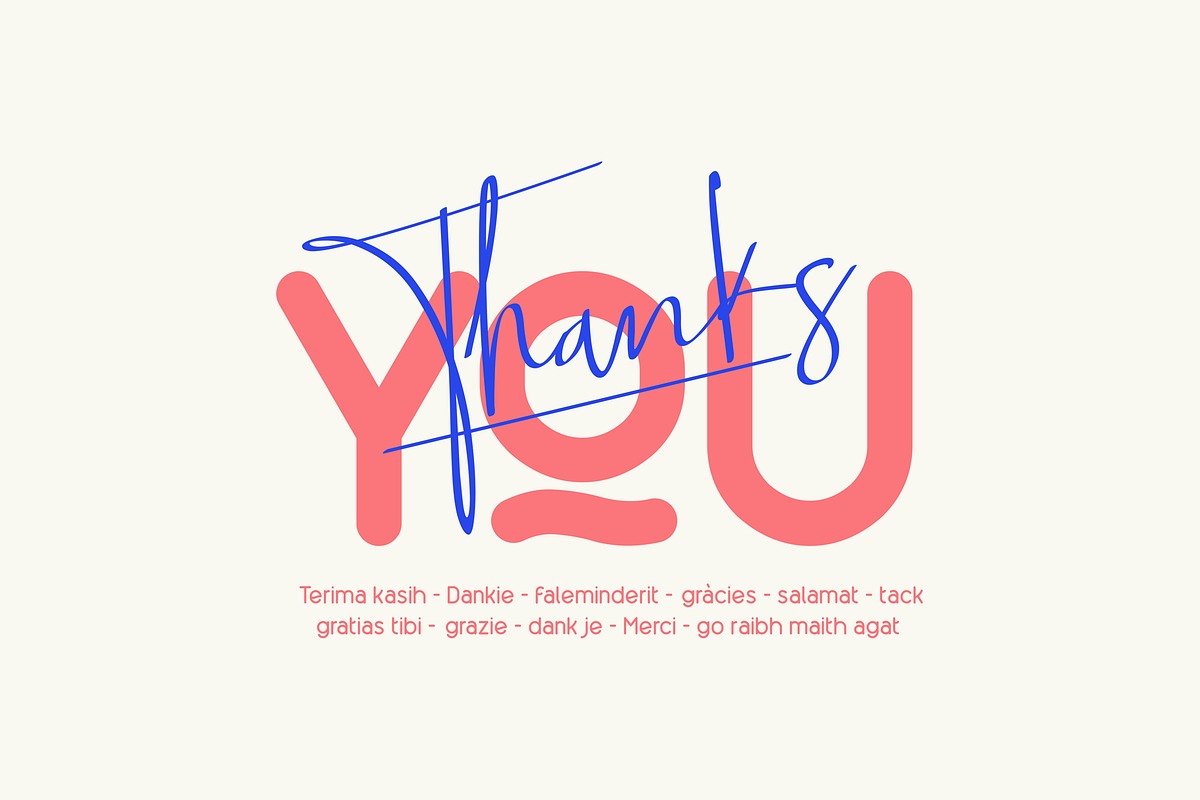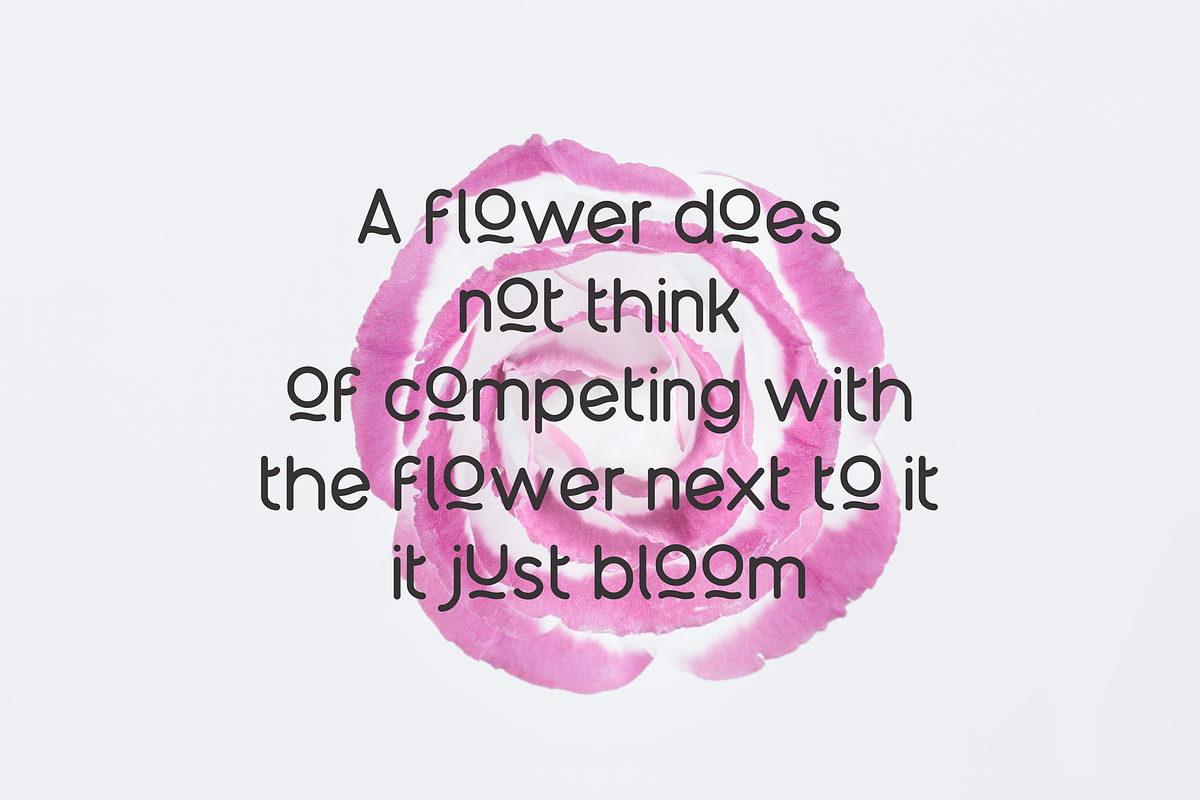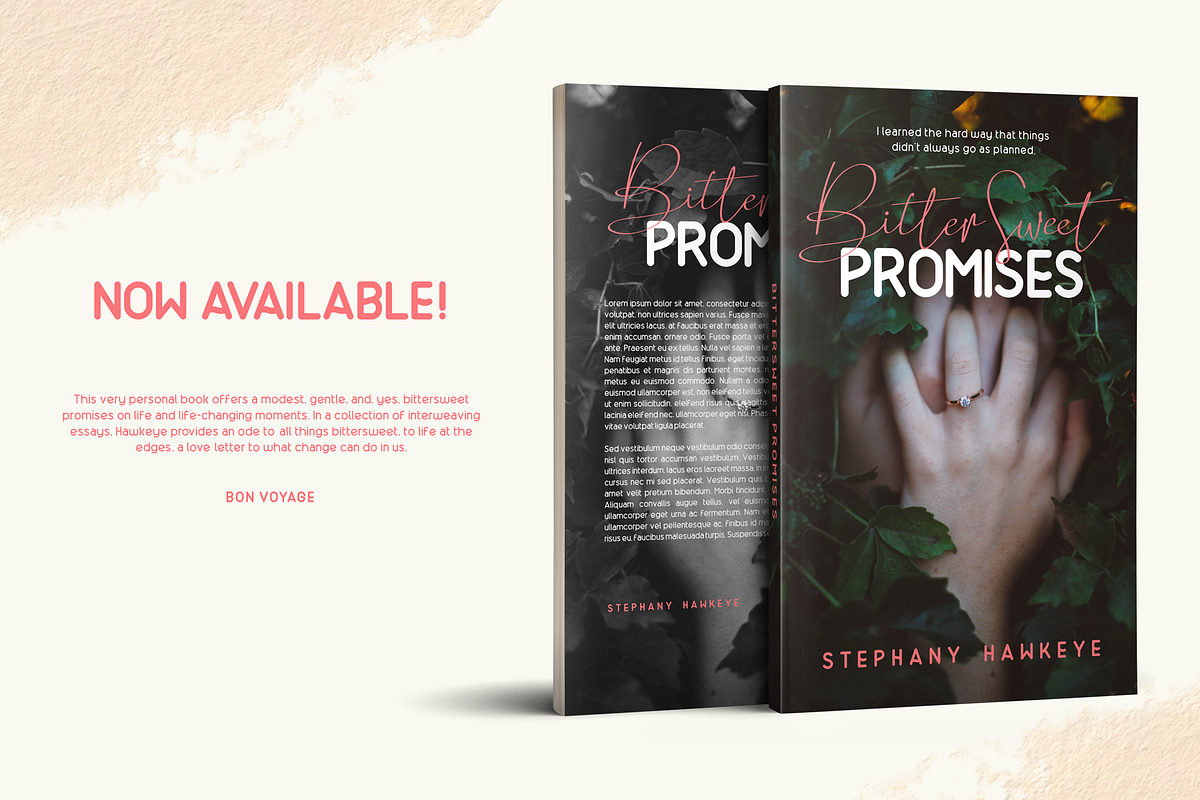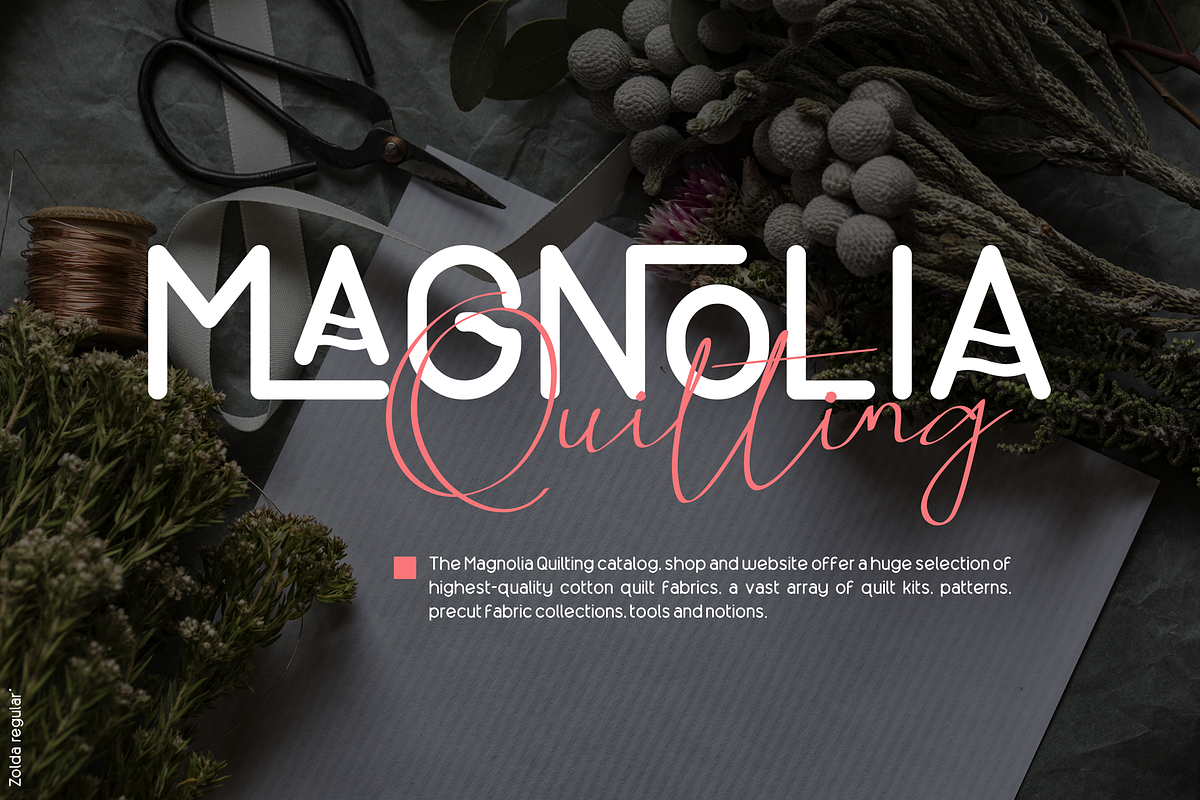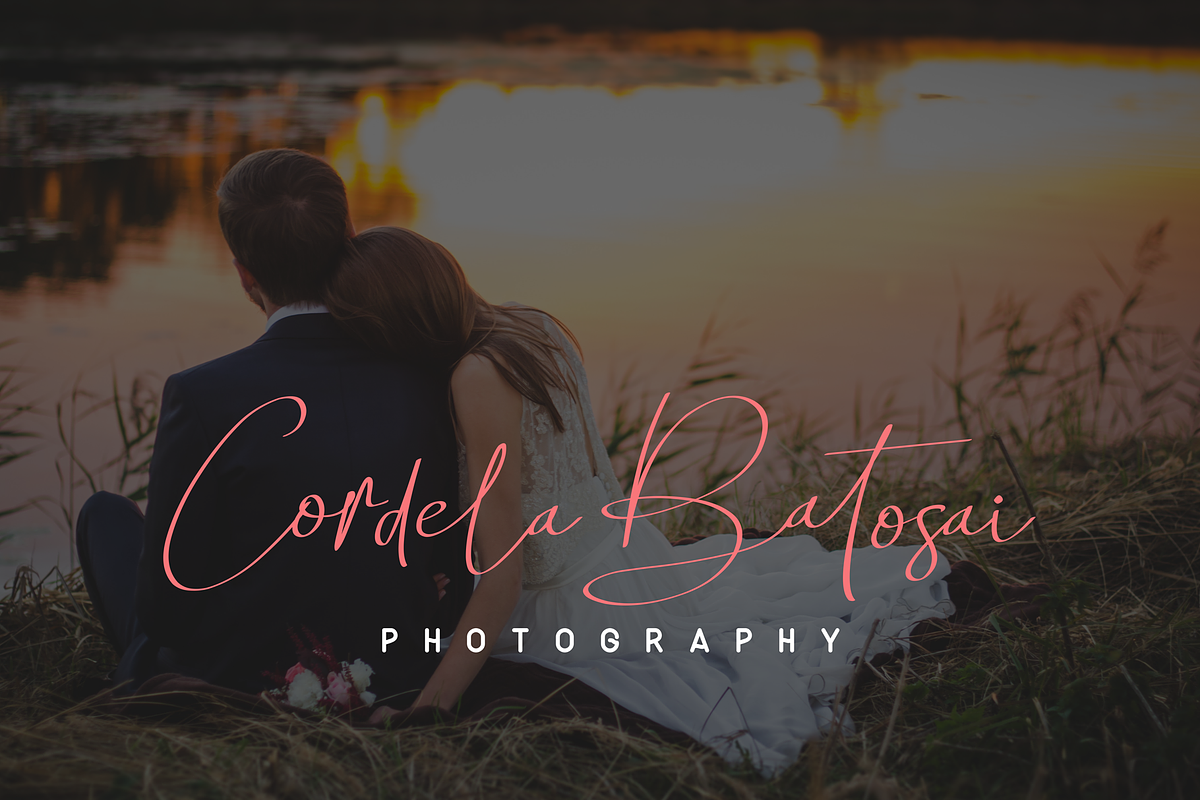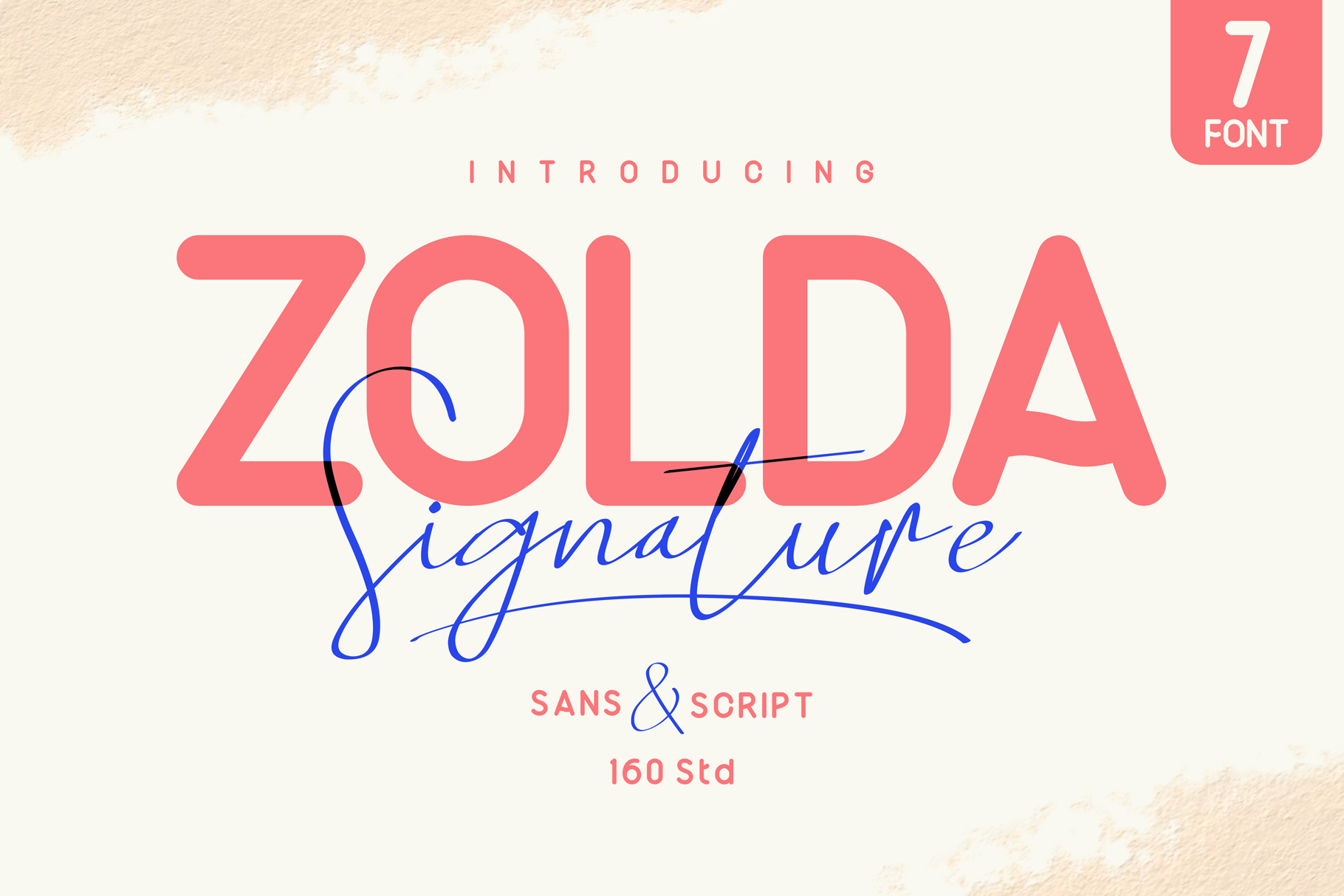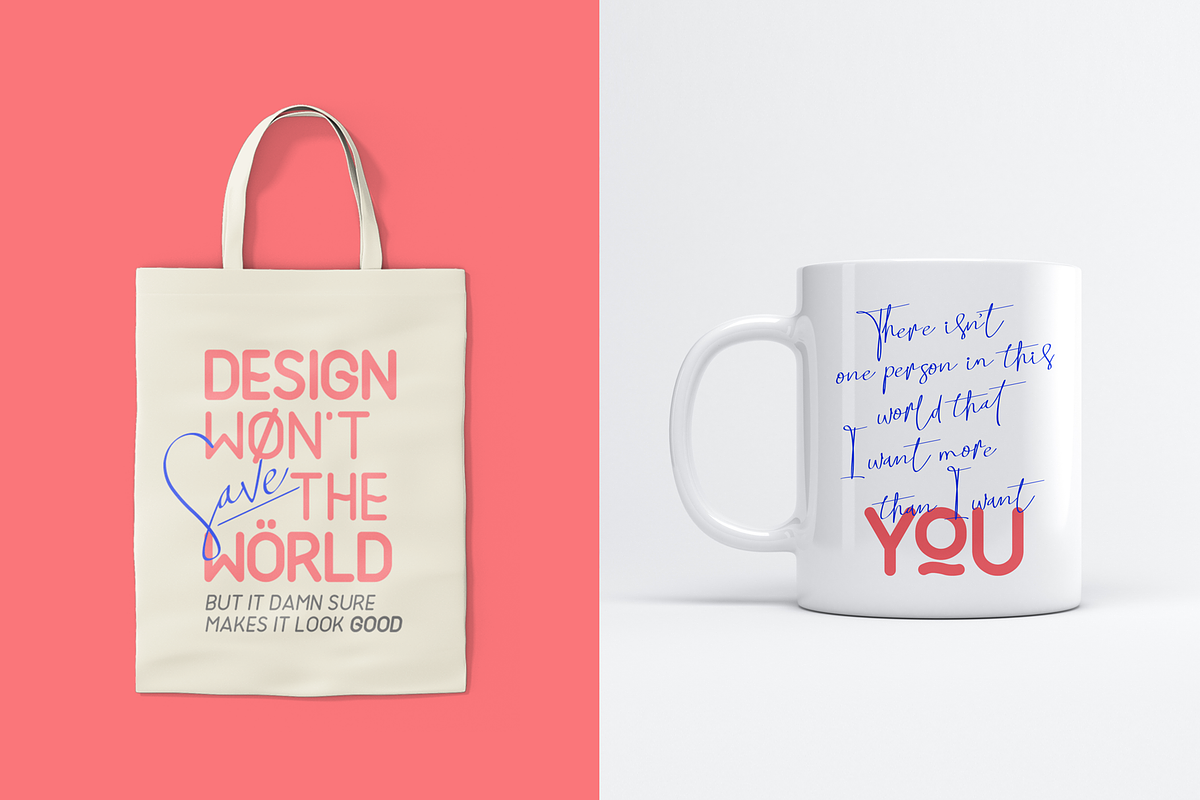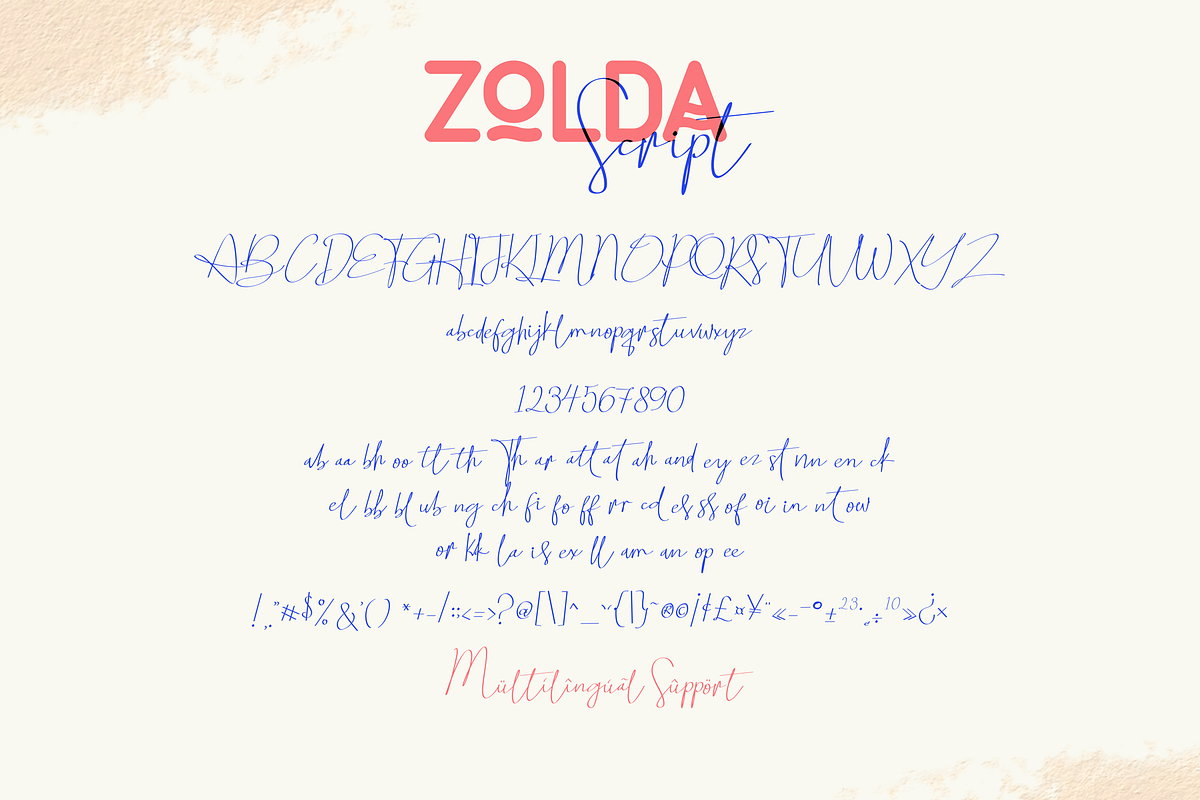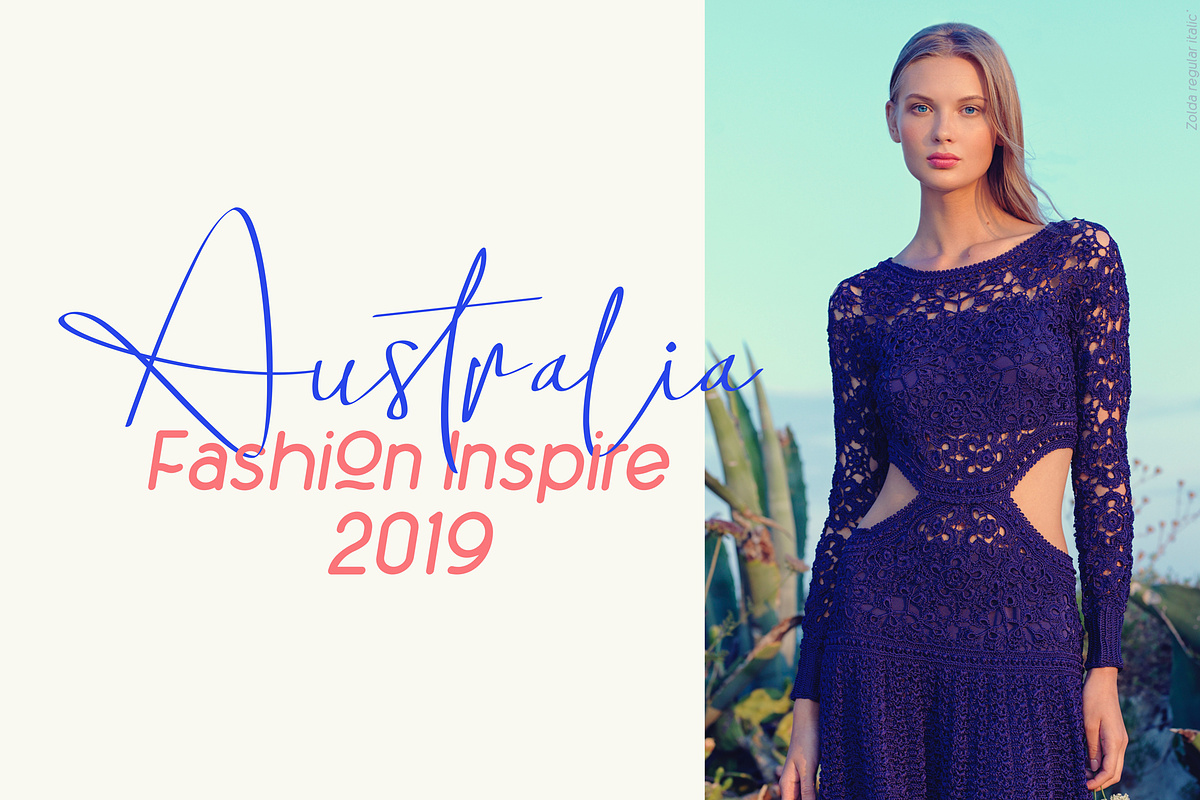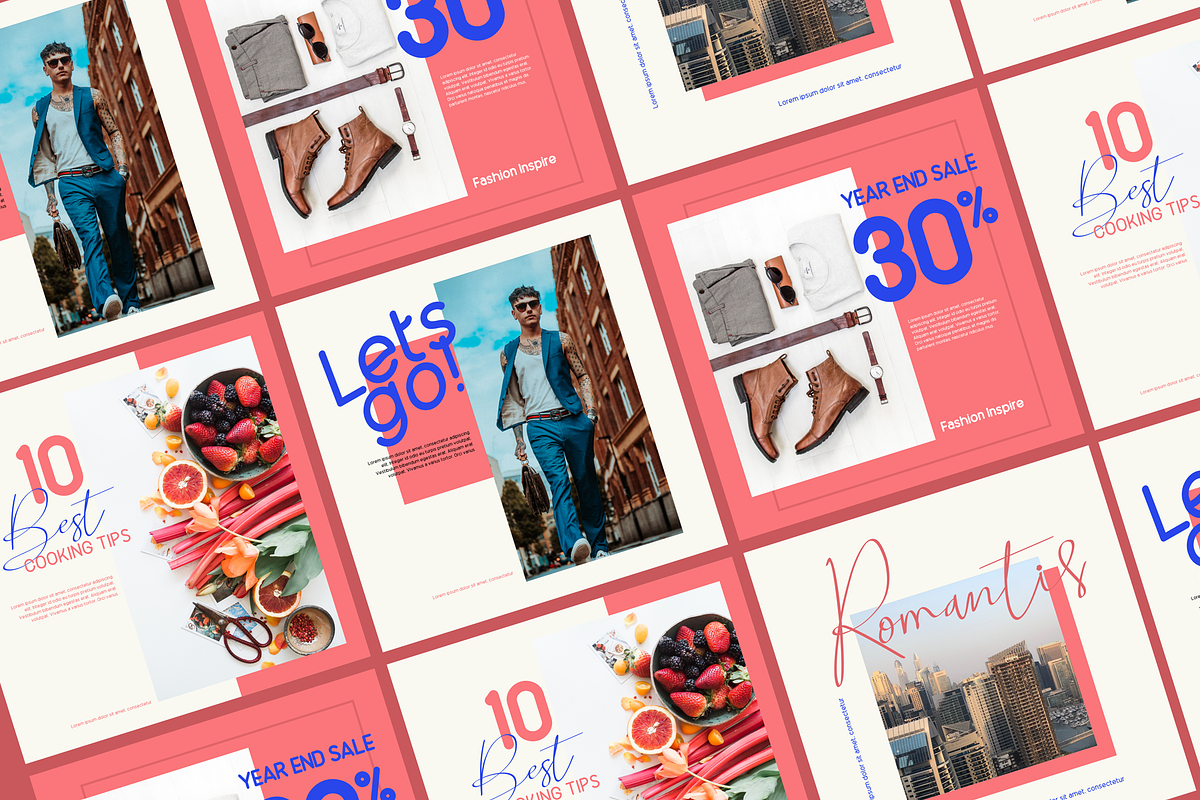
Zolda Script + Sans Family | 7 Fonts
Introducing Zolda sans serif font coming in 3 styles Regular, Script, and Swash. Strong letters with ton of ligatures and style to choose to make unique only for you! This fonts is perfect for : Logo, headlines, quotes, Web, magazine covers, editorial design, print posters, signage, window shop design, etc.
- 3 Styles and 2 weights
- Ton of Beautiful Ligatures & Alternates
- Multilanguage support